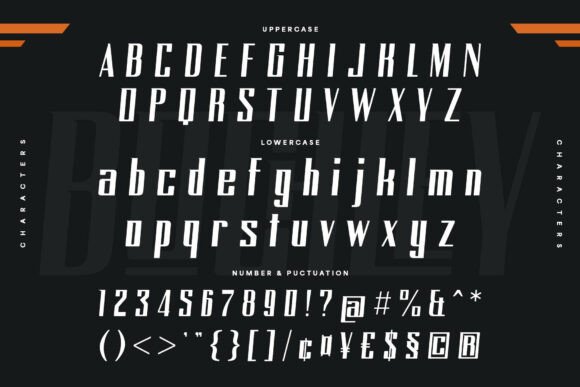
Bockley Font: Unleash the Energy of Dynamic Sports Display Typography
In the world of design, typography plays a crucial role in conveying the message and tone of a project. When it comes to sports-related designs, a font that exudes energy, power, and intensity is essential. This is where Bockley Font comes into play. Designed to inject a sense of dynamism and competitiveness into your projects, Bockley is a modern sports display font that is perfect for athletic branding, team logos, sports event posters, and gaming headlines.
The Power of Bockley Font
Bockley Font is characterized by its strong, angular forms that convey a sense of speed and determination. Its bold presence ensures maximum impact and excellent readability, making it ideal for high-visibility applications. The font’s modern and impactful design makes it a must-have for designers looking to convey strength, action, and undeniable force.
Perfect for Athletic Branding and Sports Designs
Bockley Font is specifically designed for sports-related designs, making it perfect for athletic branding, team logos, and sports event posters. Its dynamic and energetic feel makes it an excellent choice for designers looking to create a captivating sports advertisement or an exciting e-sports title.
- Athletic branding: Create a strong and recognizable brand identity with Bockley Font.
- Team logos: Design a logo that exudes power and intensity with Bockley Font.
- Sports event posters: Create eye-catching posters that grab attention with Bockley Font.
- Gaming headlines: Add a competitive edge to your gaming headlines with Bockley Font.
Key Features of Bockley Font
Bockley Font comes with several key features that make it an excellent choice for sports-related designs. Some of its notable features include:
- Strong and angular forms: Convey a sense of speed and determination.
- Bold presence: Ensures maximum impact and excellent readability.
- Modern and impactful design: Makes it perfect for high-visibility applications.
- Dynamic and energetic feel: Adds a competitive edge to your typography.
Why Choose Bockley Font?
With so many fonts available, why choose Bockley Font? Here are a few reasons:
- Unique design: Bockley Font has a unique design that sets it apart from other fonts.
- Highly versatile: Can be used for a wide range of sports-related designs.
- Excellent readability: Ensures that your message is conveyed clearly.
In conclusion, Bockley Font is a dynamic sports display font that is perfect for athletic branding, team logos, sports event posters, and gaming headlines. Its strong, angular forms and bold presence ensure maximum impact and excellent readability, making it ideal for high-visibility applications. With its modern and impactful design, Bockley Font is a must-have for designers looking to convey strength, action, and undeniable force.